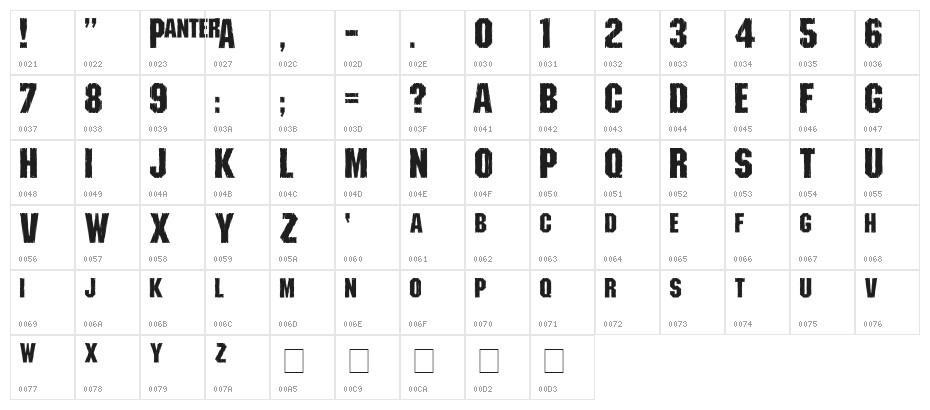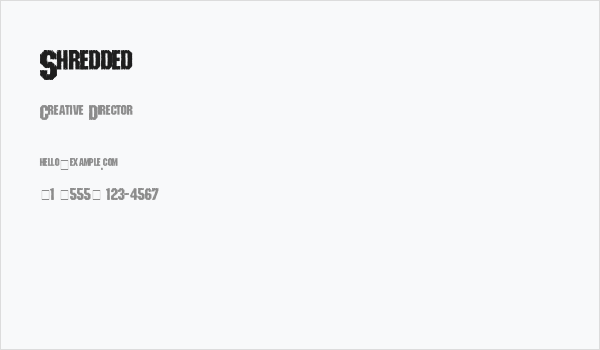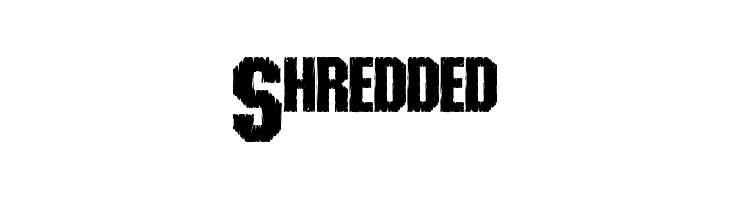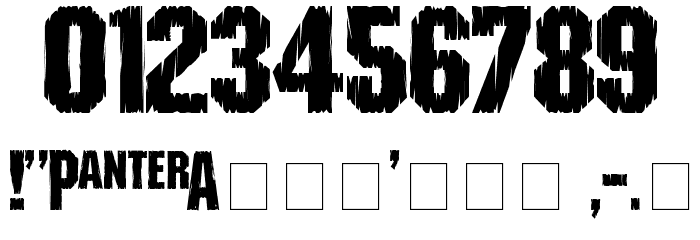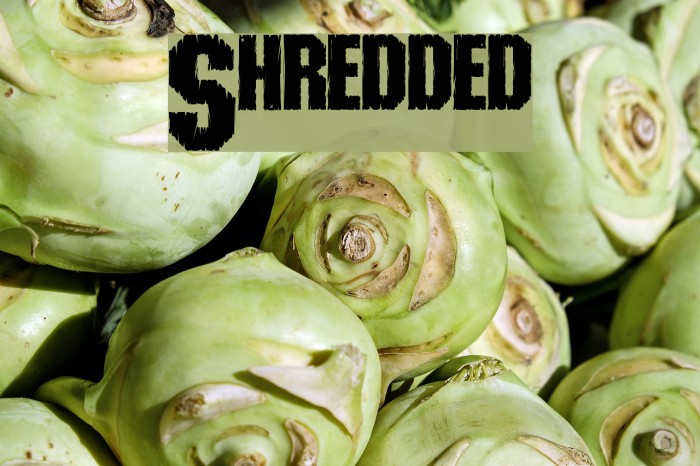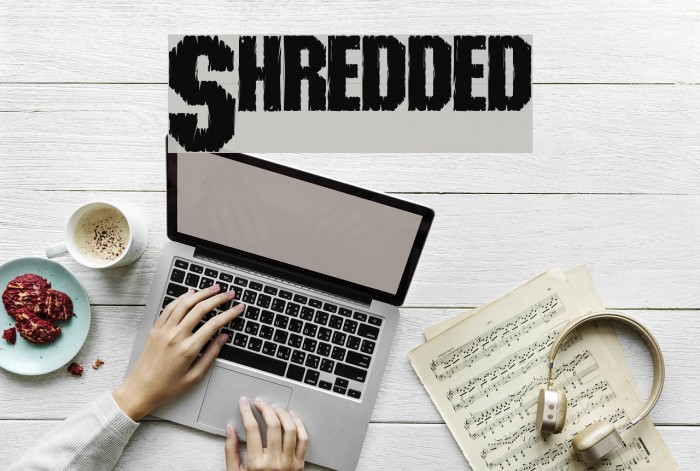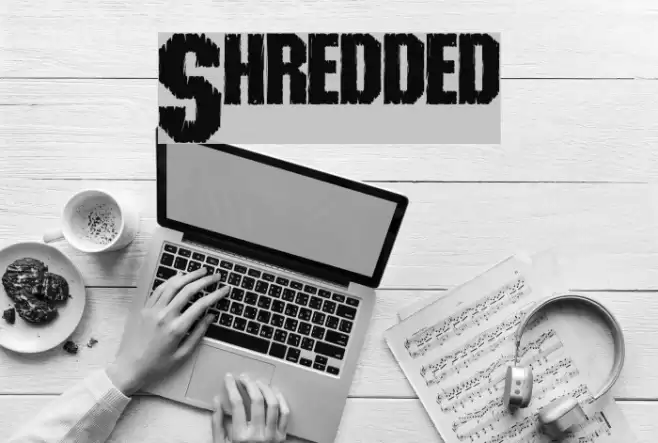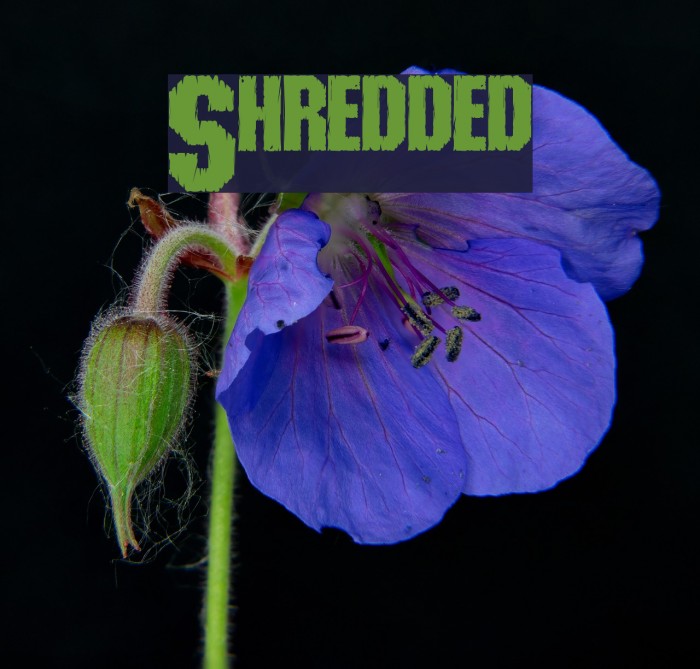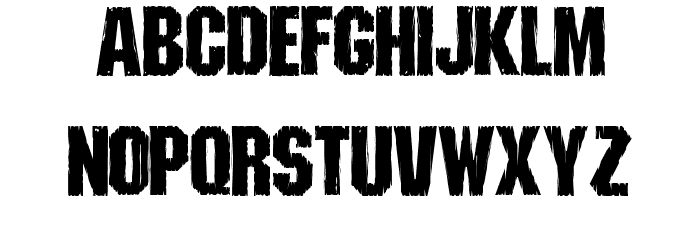
Shredded Font
Shredded Description
This font features a bold and rugged design, characterized by its distressed and shredded appearance. The letters have a rough, textured edge that gives them a dynamic and energetic feel. The uppercase and lowercase letters maintain a consistent style, with numbers and special characters following the same aesthetic. This font is ideal for projects that require a strong, impactful look, such as music album covers, posters, or branding for edgy and adventurous brands. Its unique style makes it stand out, ensuring that any text set in this font will capture attention.
| Proposed Projects | Ideal for music album covers, posters, and edgy branding. |